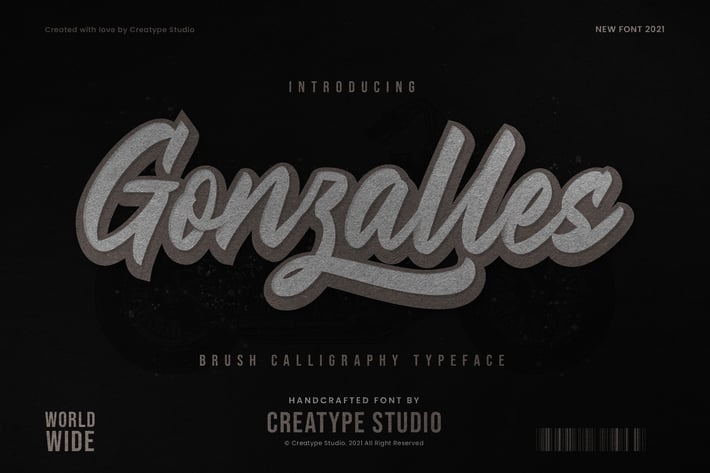
Gonzalles Brush Business Font
Gonzalles is a brush calligraphy typeface that is made by the hands of the experts with great love so that it produces works that are so natural. The strokes in the fonts make your project look extraordinary.
Gonzalles is perfect for branding projects, logo, wedding designs, social media posts, advertisements, product packaging, product designs, label, photography, watermark, invitation, stationery and any projects that need handwriting taste.
Ton of glyphs
Ligature & Alternate